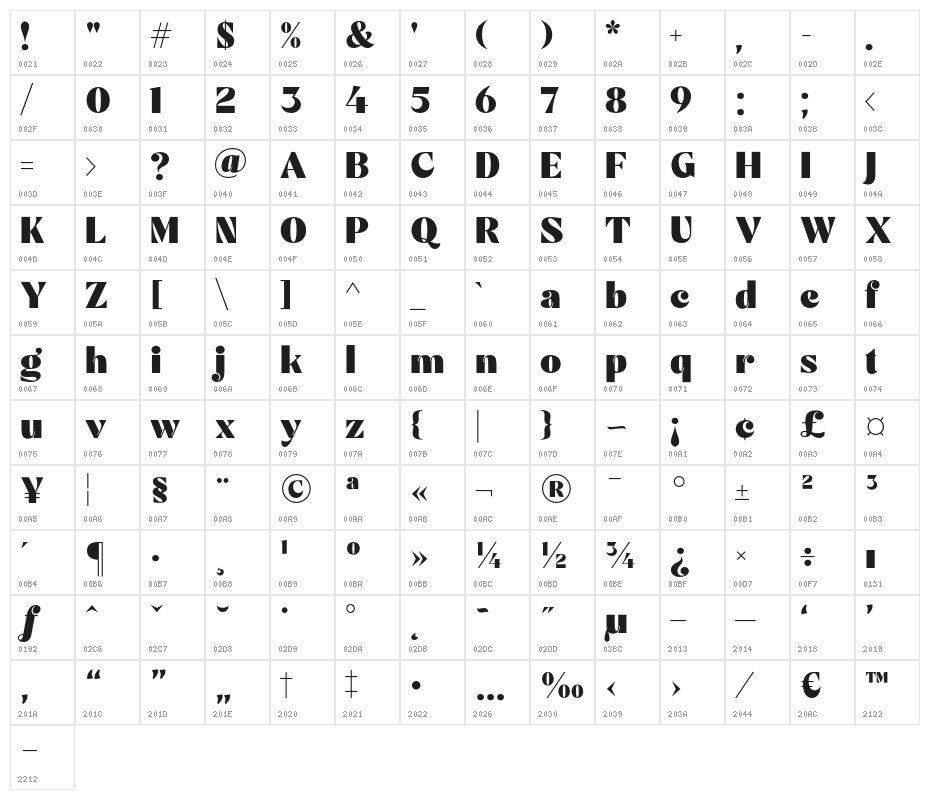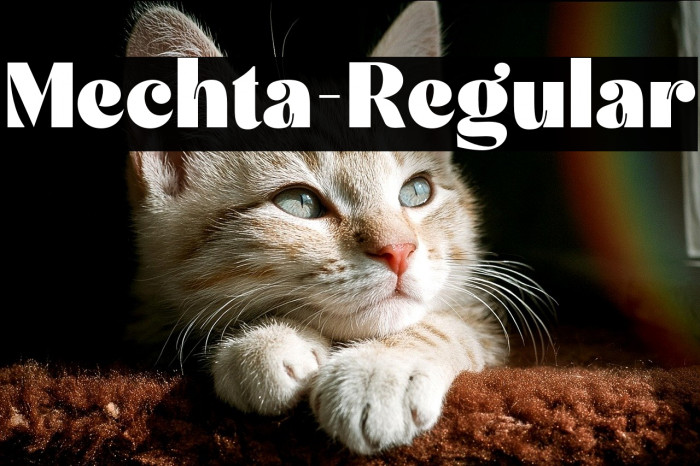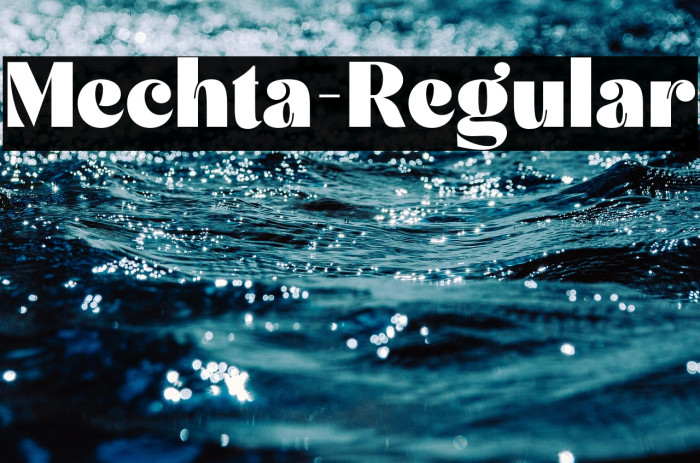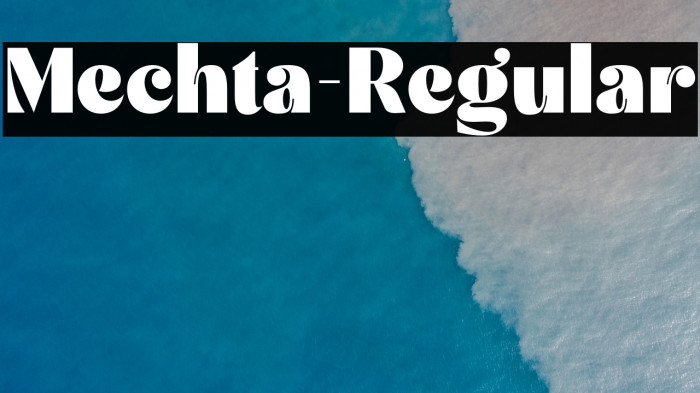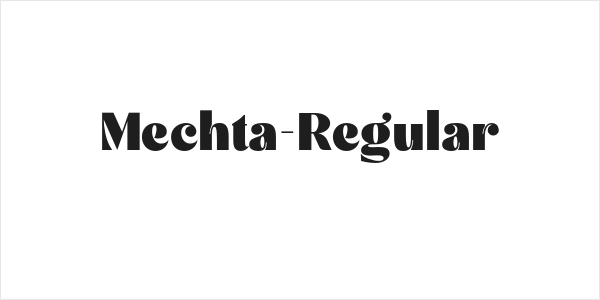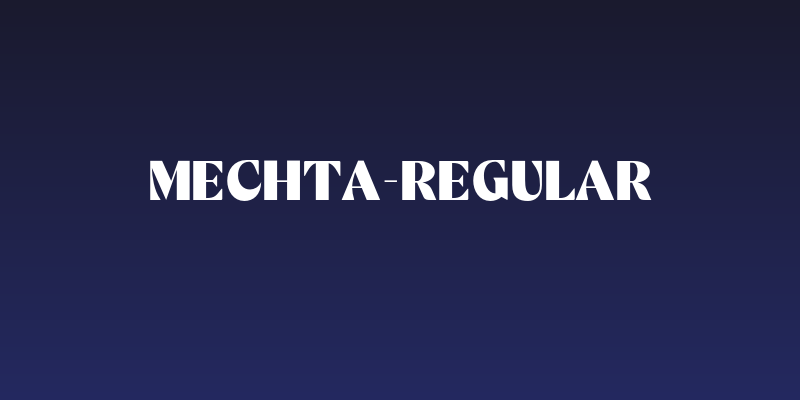
Mechta-Regular Font
Mechta-Regular Description
This font features a bold and striking design with high contrast between thick and thin strokes, giving it a dramatic and impactful appearance. The characters are wide and have a strong presence, making them ideal for attention-grabbing headlines and titles. The uppercase letters are particularly bold, while the lowercase letters maintain a consistent style with slightly rounded edges. The numerals are equally bold, ensuring they stand out in any context. Special characters are designed with the same boldness, providing a cohesive look across all elements.
| Proposed Projects | This font is perfect for branding projects, magazine covers, posters, and any design that requires a strong visual impact. |